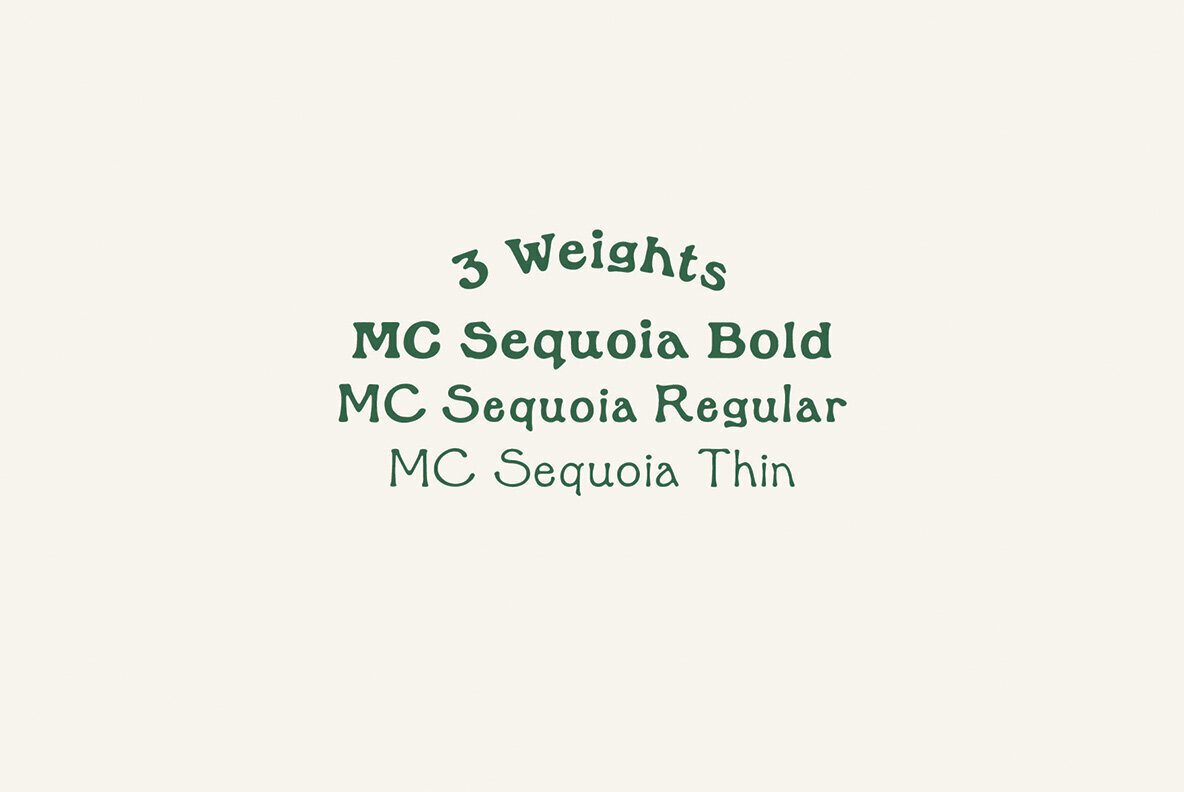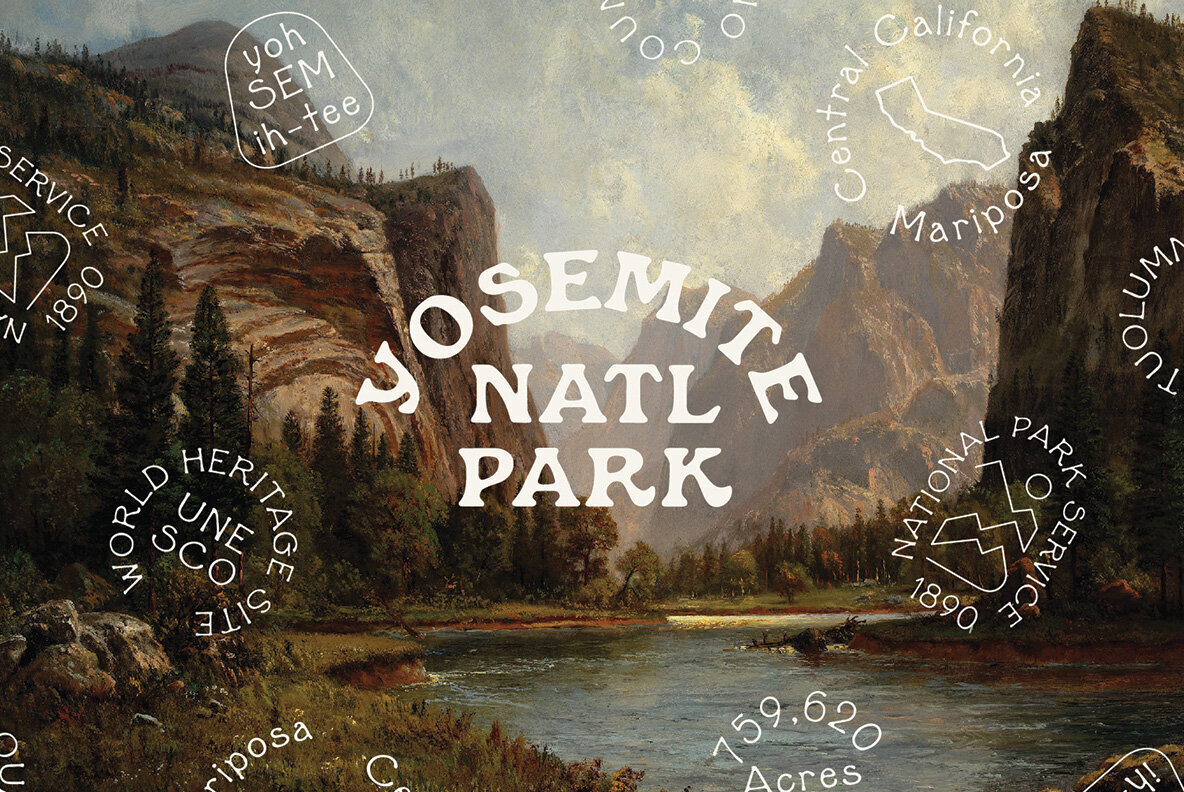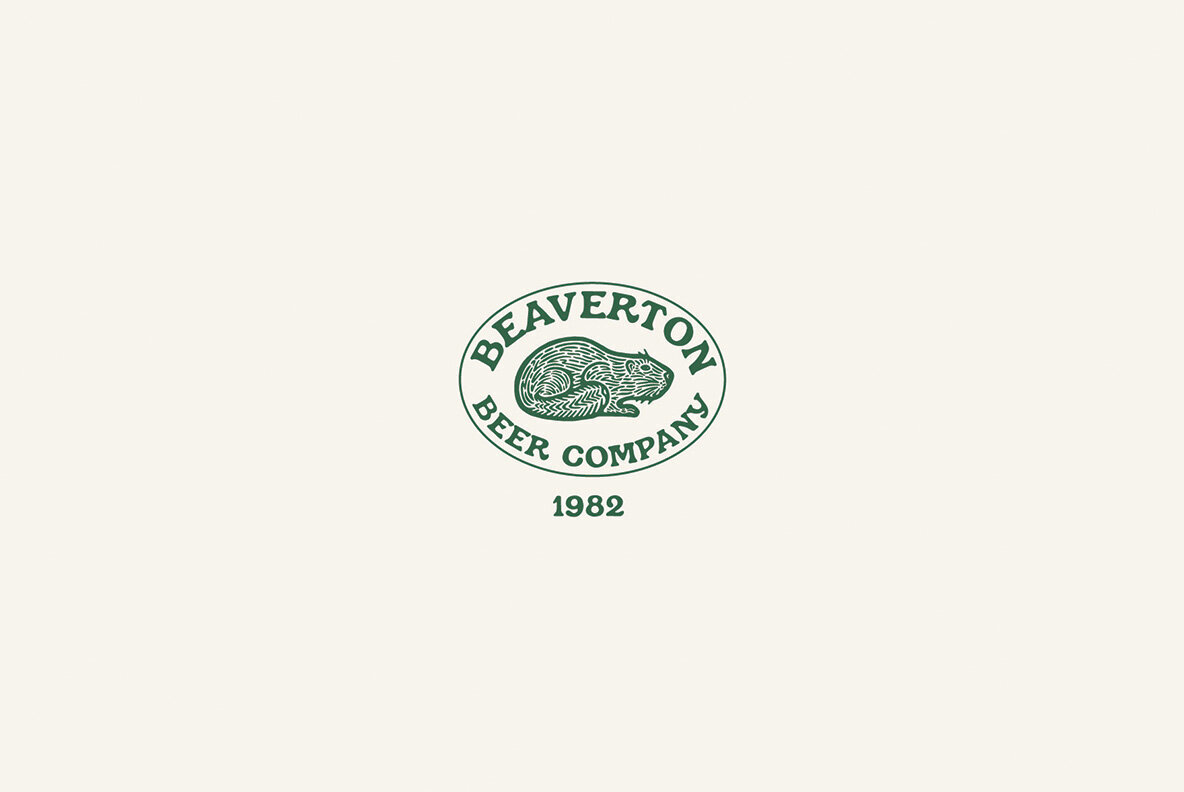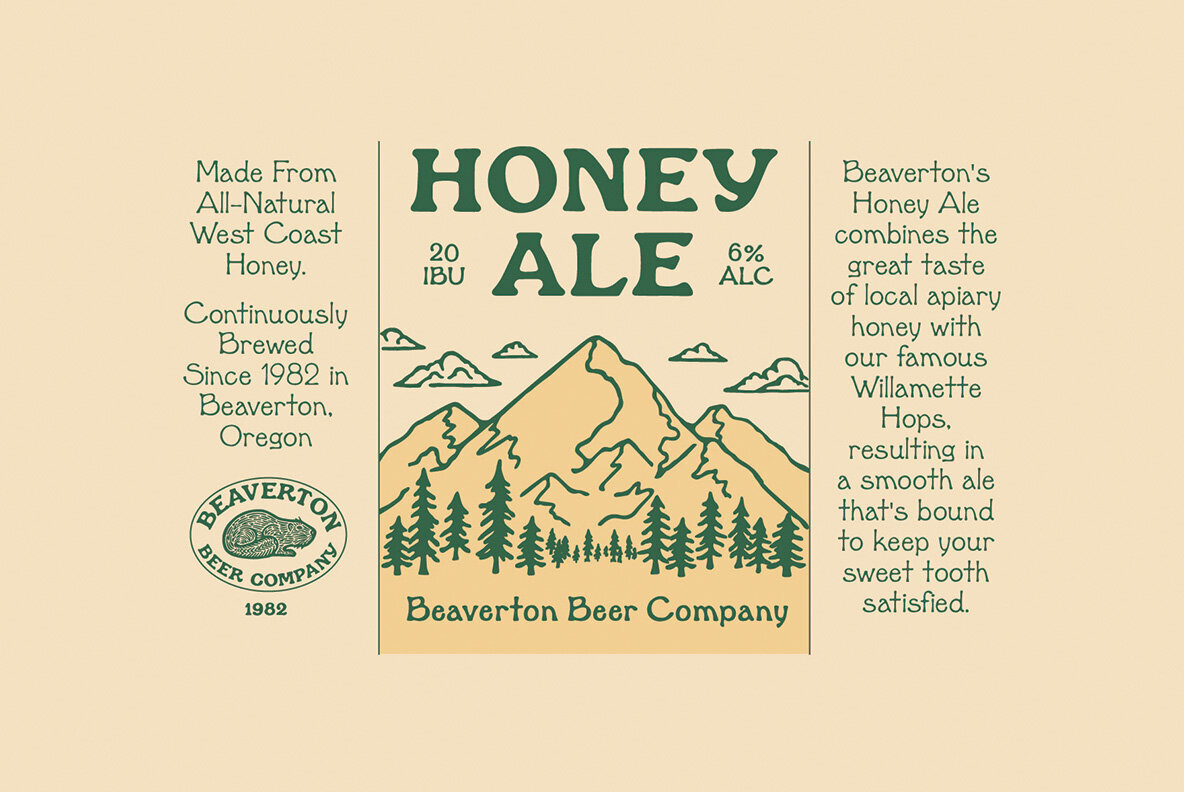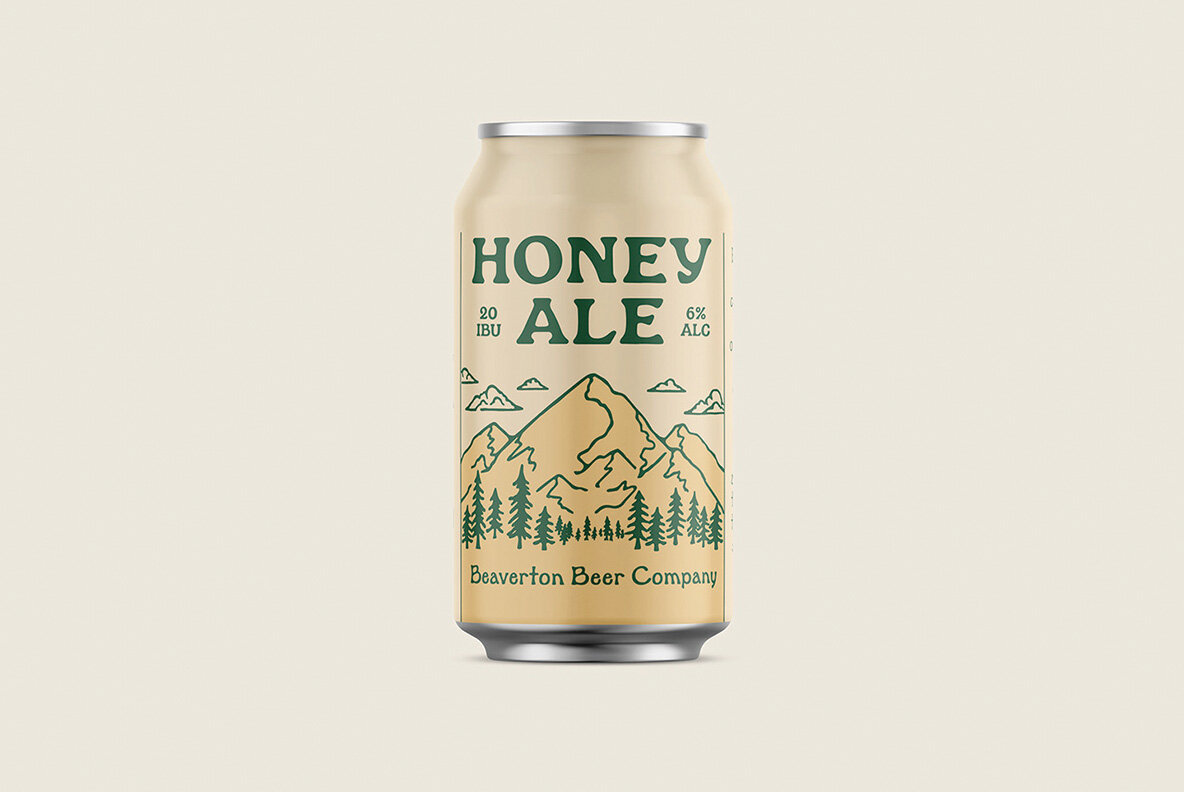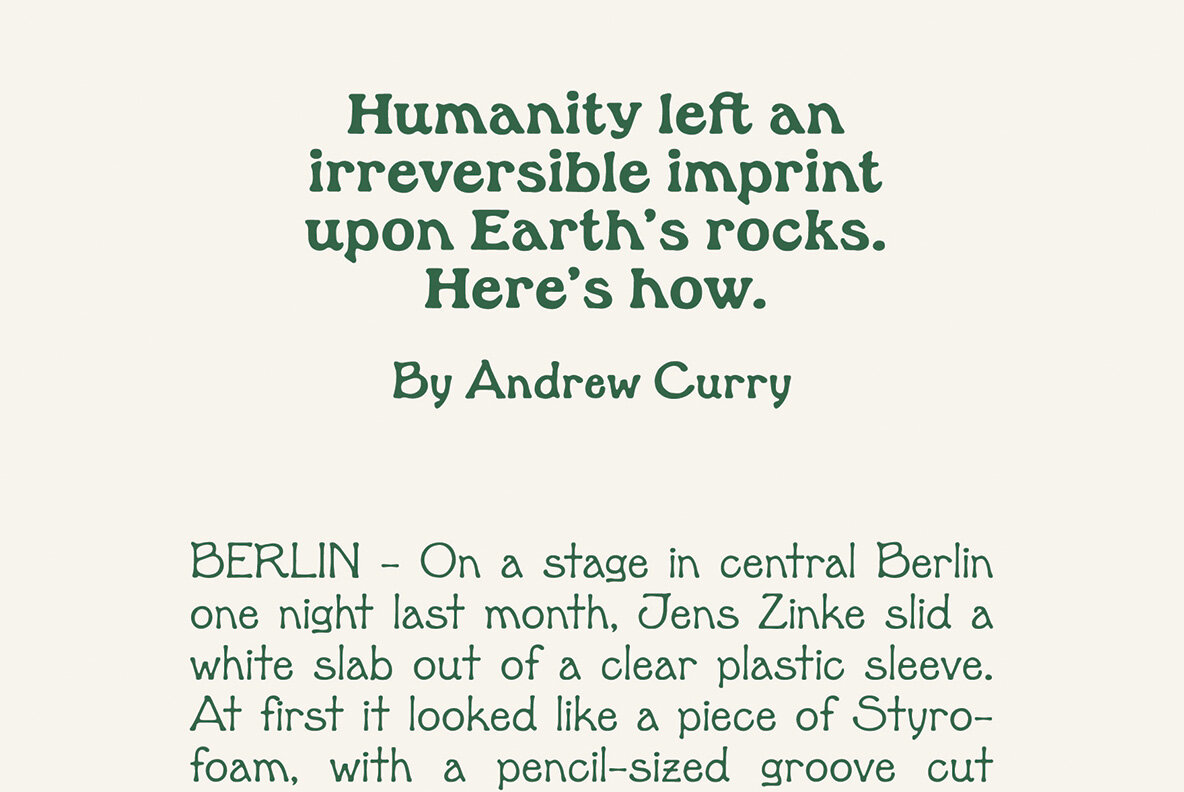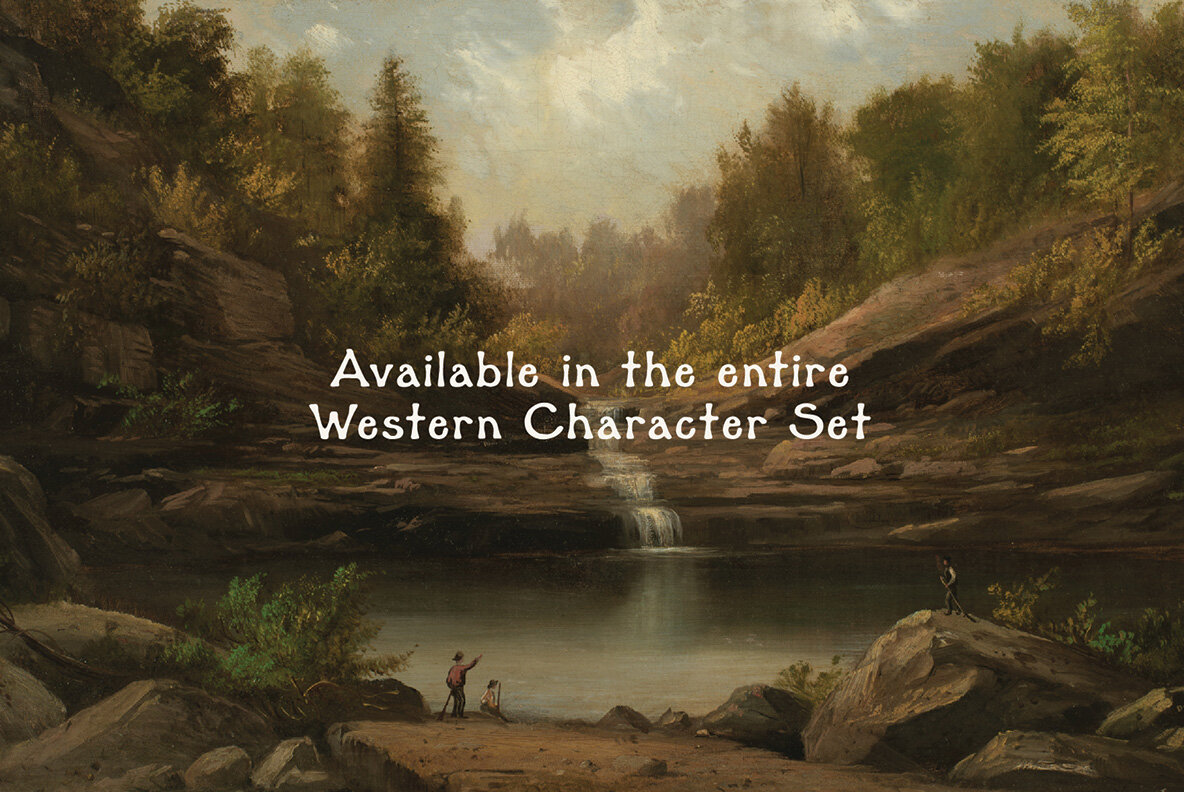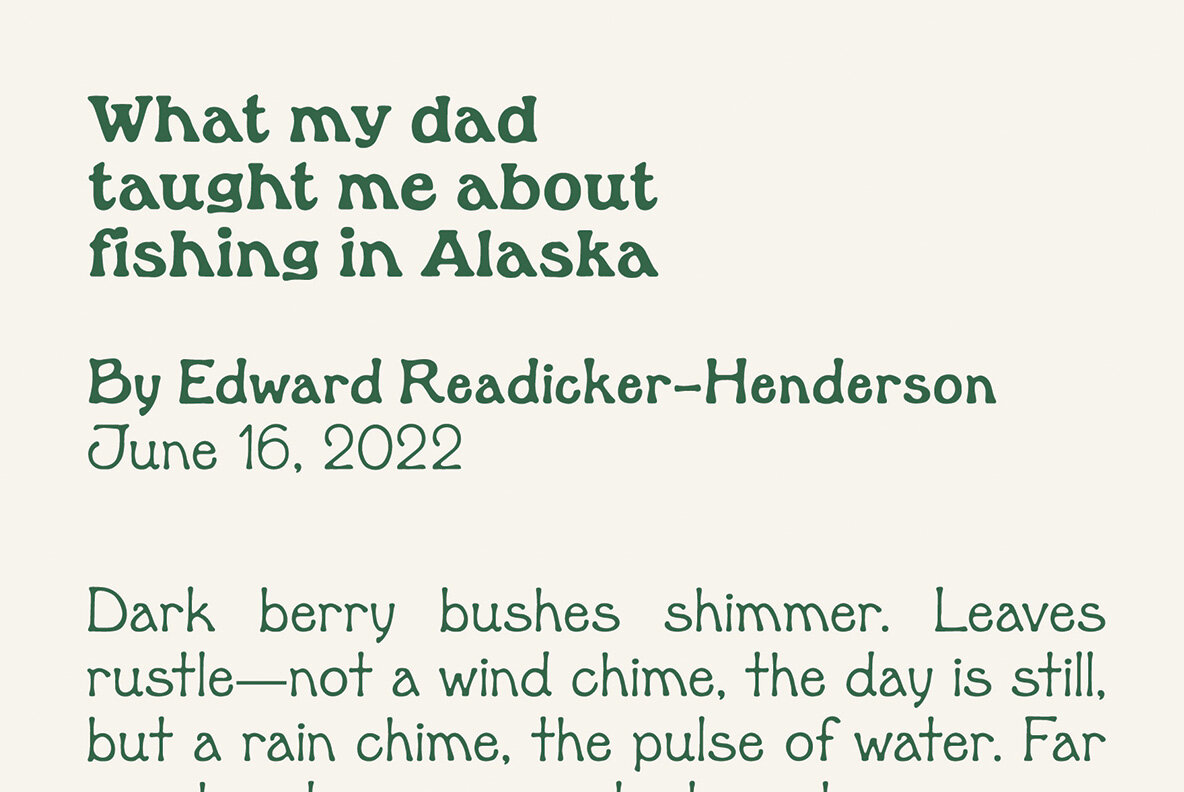
MC Sequoia Font
MC Sequoia Thin
MC Sequoia Regular
MC Sequoia Bold
Perfect for print, badges, posters, and labels looking to catch that outdoorsy feel. Comes with the entire Western Character Set.